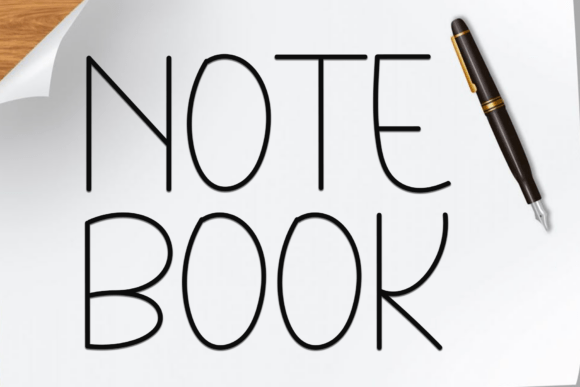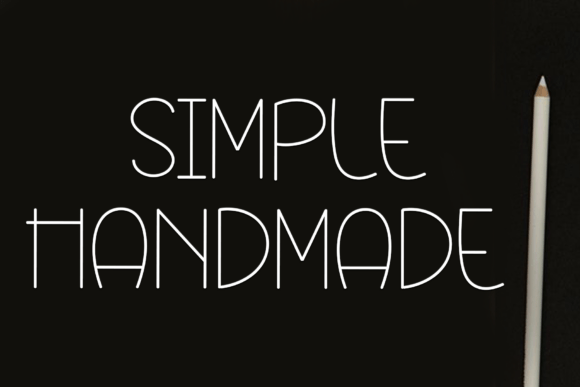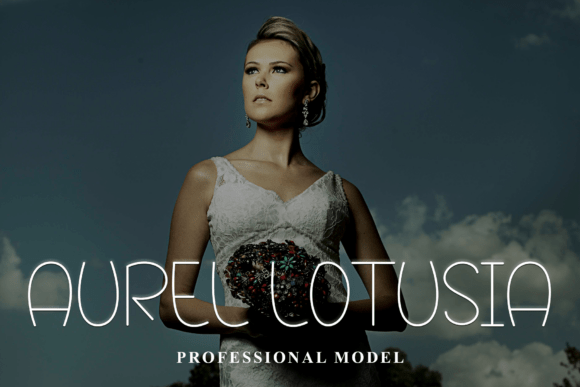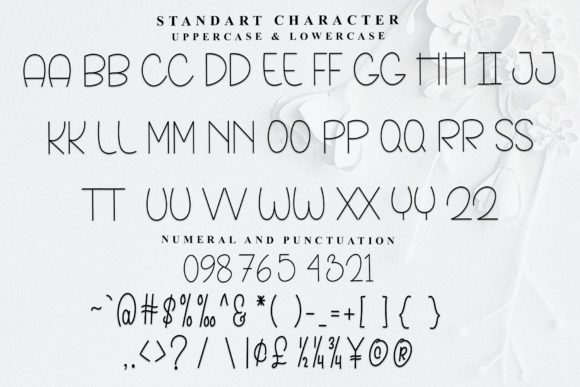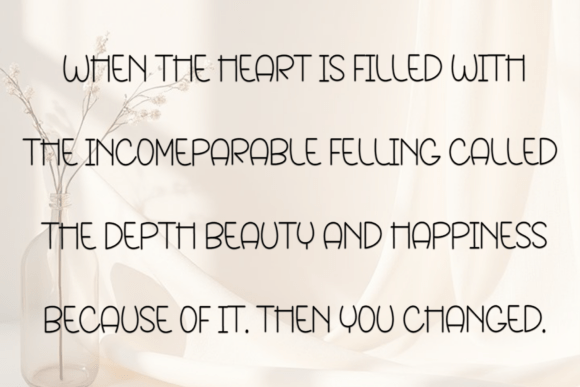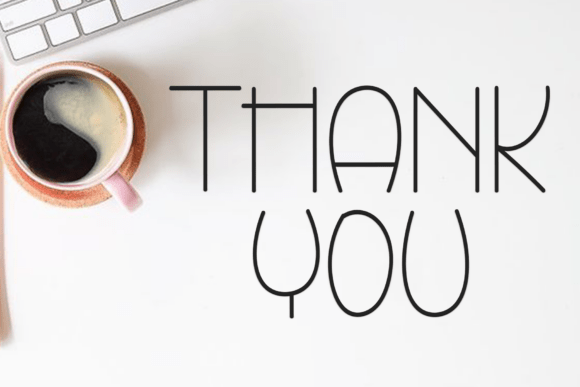
Discovering the Perfect Typographic Match
Have you ever found yourself stuck on a design project, staring at a blank canvas, searching for the perfect font to bring your vision to life? You know, that moment when everything seems to be missing just one element to make it truly special?
Enter Another Font, a delightful and approachable font that’s sure to capture your heart. Its natural, unique style makes it an excellent fit for a wide range of designs, limited only by your imagination. Whether you’re working on a branding project, a social media campaign, or a creative poster, Another Font is the perfect companion to help you express your ideas.
What makes Another Font truly valuable for designers is its versatility and friendliness. It’s a font that effortlessly adapts to various design styles, from modern to vintage, and everything in between. With Another Font, you can confidently explore new ideas and push the boundaries of creativity.
Key Features of Another Font
- Font Family: Another Font is a sans-serif font family designed for modern digital use, with 12 styles available, including Thin, Light, Regular, Medium, Bold, Extra Bold, Black, and 5 condensed styles.
- Language Support: Another Font supports over 100 languages, including Latin, Cyrillic, Greek, and many other languages, making it a versatile choice for global applications.
- Unique Characteristics: The font features a clean and modern design with a subtle rounded edge, making it ideal for use in digital interfaces, signage, and other applications where readability and style are essential.
Review of “Another Font”
I’ve had the chance to work with “Another Font” on a recent project, and I have to say, it’s a decent choice for body text, but it falls short in other areas. Here’s what I think.
- Legibility: “Another Font” is easy on the eyes and works well for long blocks of text.
- Neutral style: It doesn’t have any strong visual personality, making it a good choice for corporate or business materials.
- Compatibility: It’s a standard font, so it’s widely supported across most devices and operating systems.
- Lack of expressiveness: As mentioned earlier, the font is very neutral, which can make it feel bland or unengaging at times.
- No real personality: Without any distinctive characteristics, “Another Font” can get lost in the sea of other fonts.
- Not ideal for headings: While it’s okay for body text, it’s not the best choice for headings or titles, as it can get lost in the background.
Overall impression
“Another Font” is a solid, workmanlike choice for body text, but it’s not going to win any awards for creativity or expressiveness. If you’re looking for a font that’s safe and unobtrusive, it might be worth considering, but if you want something with a bit more personality, you might want to look elsewhere.
Another Font Practical Application Guide
Getting the Most Out of Another Font
To get the most out of Another Font, experiment with different font sizes, colors, and styles to create visually appealing designs.
Use Another Font to create a unique and distinctive brand identity or to add a touch of elegance to your designs.
Another Font is ideal for:
Creating invitations, brochures, and other marketing materials.